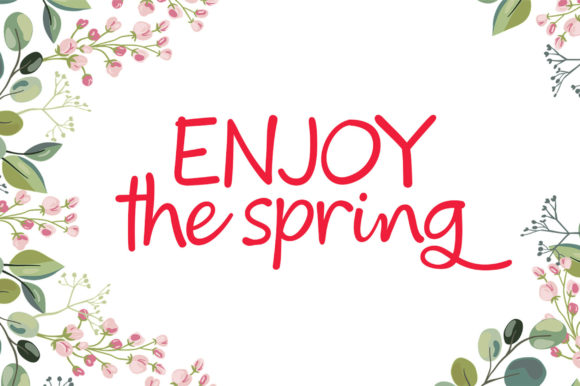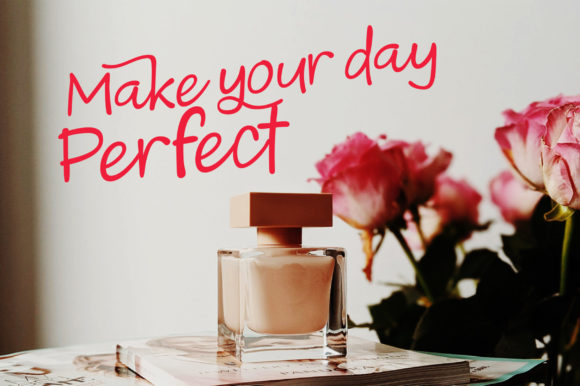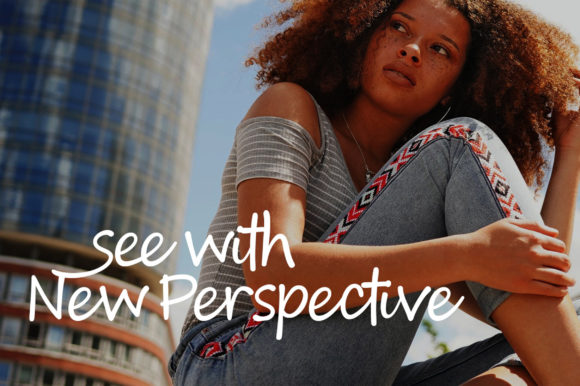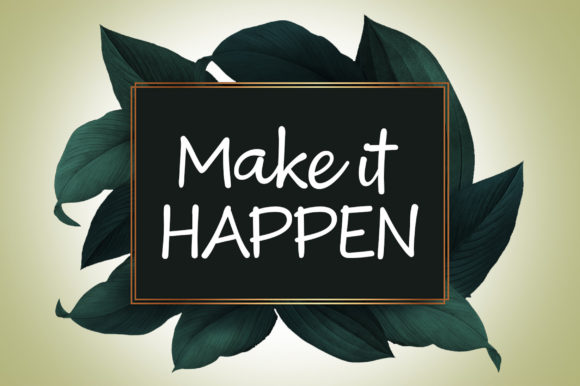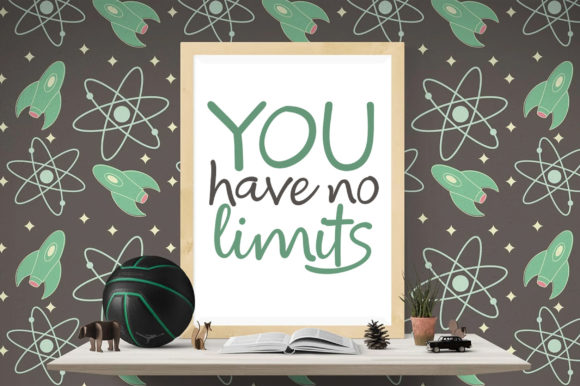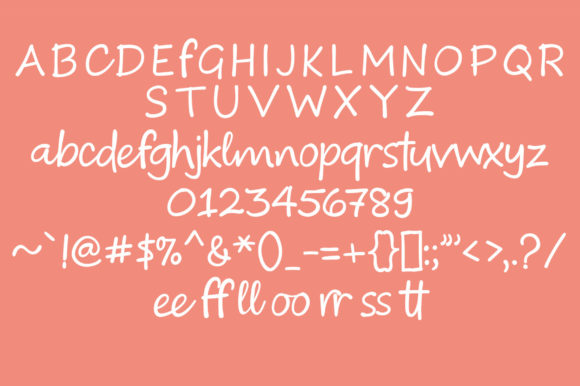
Calebor Font: Elevate Your Designs with a Gorgeous yet Quirky Script Font
Calebor is a stunning script font that has been making waves in the design community with its natural and unique style. This gorgeous yet quirky font is incredibly versatile, making it perfect for a wide range of designs, from creative projects to commercial endeavors. Whether you’re a designer, crafter, or simply a DIY enthusiast, Calebor is sure to inspire your next project.
The Unique Charm of Calebor Font
What sets Calebor apart from other script fonts is its distinctive character. The font boasts a natural, hand-crafted look that is both elegant and playful. Its unique style makes it incredibly fitting for a variety of designs, from whimsical crafts to sophisticated branding projects. With Calebor, the only limit is your imagination!
Calebor’s versatility is one of its most significant advantages. This font can be used in a multitude of design projects, including:
- Branding and Logo Design: Create a lasting impression with Calebor’s elegant and quirky style, perfect for logos, business cards, and letterheads.
- Digital and Print Materials: Use Calebor to add a touch of personality to your brochures, flyers, posters, and social media graphics.
- Crafting and DIY Projects: Add a personal touch to your handmade crafts, such as journals, planners, and gift tags.
- Web Design: Enhance your website’s visual appeal with Calebor’s unique style, perfect for headings, titles, and quotes.
Why Designers and Crafters Love Calebor
Calebor has quickly become a favorite among designers and crafters due to its:
- Unique Style: Calebor’s distinctive character sets it apart from other script fonts, making it perfect for designers and crafters looking for something new and exciting.
- Ease of Use: Calebor is incredibly easy to use, even for those with limited design experience.
- High-Quality Design: Calebor is crafted with precision and attention to detail, ensuring a high-quality design that will elevate your projects.
Tips for Getting the Most Out of Calebor
To make the most of Calebor’s unique style, consider the following tips:
- Experiment with Pairings: Combine Calebor with other fonts to create a unique and visually appealing design.
- Play with Colors: Calebor looks stunning in a variety of colors, so don’t be afraid to experiment and find the perfect hue for your design.
- Add Texture and Patterns: Add depth and interest to your design by incorporating texture and patterns.
Calebor is a gorgeous yet quirky script font that is sure to elevate your designs and inspire your creativity. With its unique style, versatility, and ease of use, Calebor is perfect for designers, crafters, and DIY enthusiasts alike. Whether you’re looking to create a stunning brand identity, a beautiful craft project, or a visually appealing website, Calebor is the perfect choice. So why wait? Unlock your creative potential with Calebor and see where your imagination takes you!